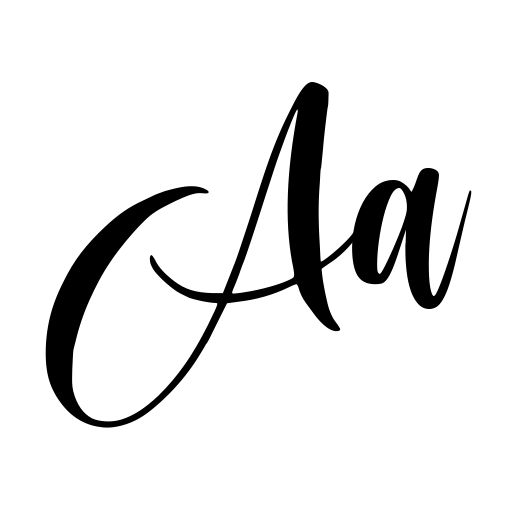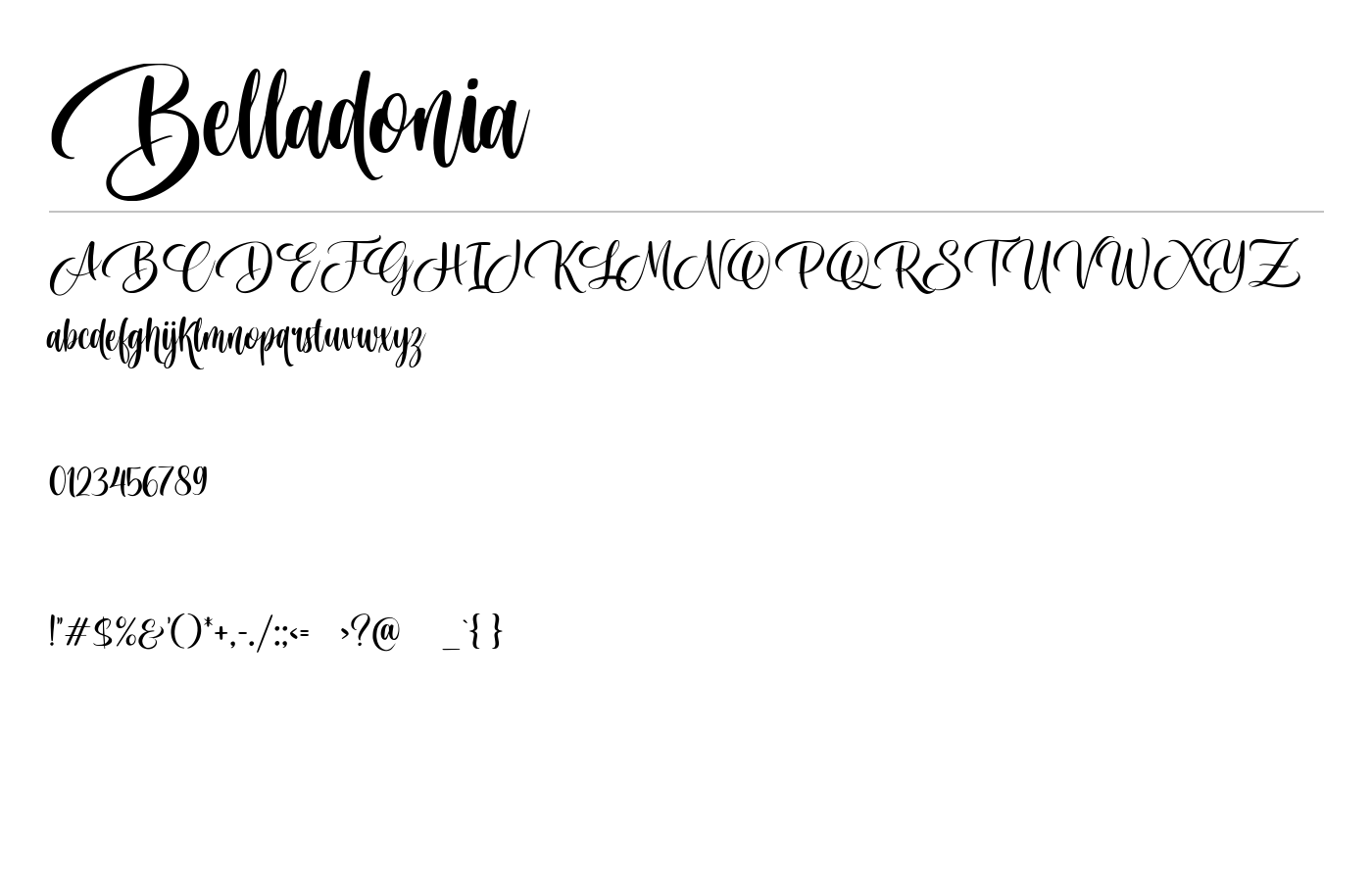
Belladonia is an elegant script font with a graceful, flowing style that combines thick and thin strokes for a refined, sophisticated look. Its tall, slender letterforms and smooth curves make it perfect for luxury branding, wedding invitations, and stylish headlines, adding a touch of timeless beauty and charm to any design. This font works best where a sense of modern elegance and personal flair is needed.
Belladonia Font
About Belladonia Font